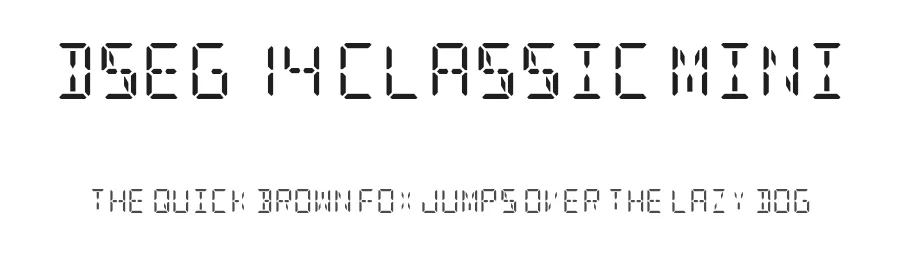
About DSEG14 Classic Font
DSEG14 Classic is a display font created by Keshikan that captures the authentic electronic typography of digital LED displays. With 94 carefully crafted glyphs and support for over 104 Latin-based languages, this font brings retro-tech character to your creative projects without complications.
Game designers use DSEG14 Classic for retro-styled interfaces, digital scoreboards, and arcade-inspired visual elements. Marketing teams incorporate it into nostalgic promotional graphics and branding projects that evoke 1980s technology. App developers choose it for dashboards, data visualization, and control panels where an electronics-inspired aesthetic suits the user experience. Crafters working on vintage-themed designs, from physical signage to digital media, find this font particularly effective for capturing authentic period style. The structured, geometric character set remains instantly recognizable and maintains solid legibility across varying sizes and applications. Licensed under the Open Font License (OFL), the font is freely available for both personal and commercial use without restrictions.
Pair DSEG14 Classic with bold, minimal backgrounds to let its geometric letterforms command full attention. The font performs best at larger display sizes where the character construction becomes a visible design feature that strengthens the overall retro-tech mood of your work.
DSEG14 Classic Font is a display font that shines as a display or heading face. Pair it with a clean sans-serif or serif font for body text โ the contrast creates a clear hierarchy while the two styles stay balanced and easy to read.
DSEG14 Classic Font